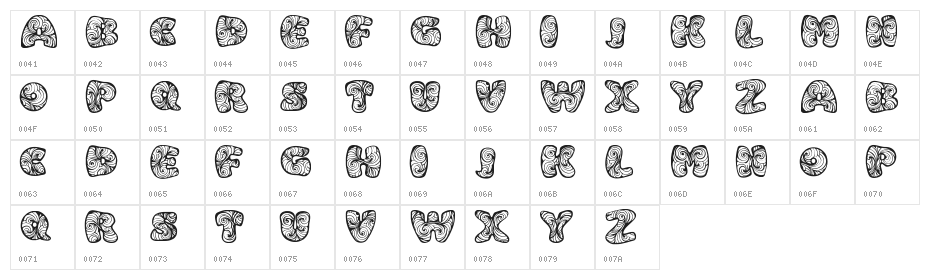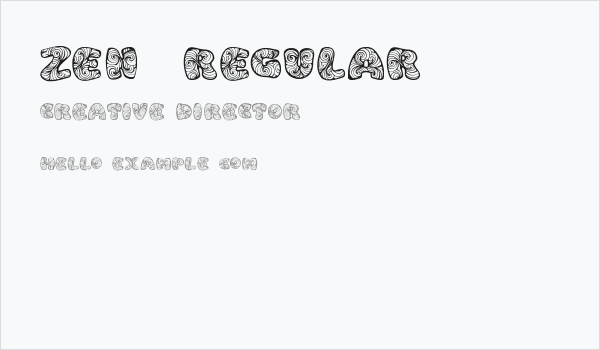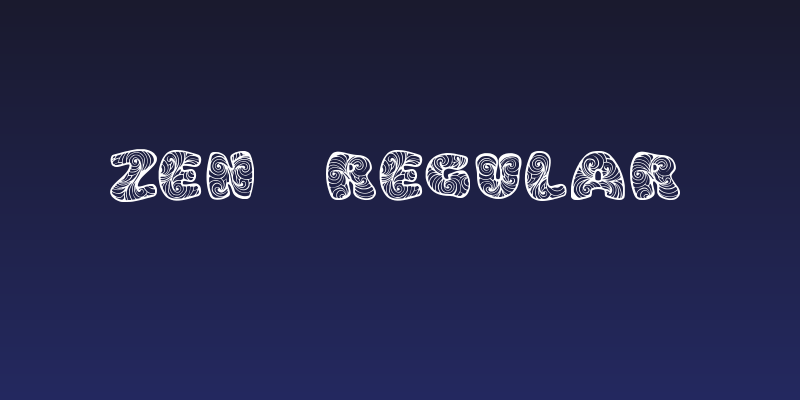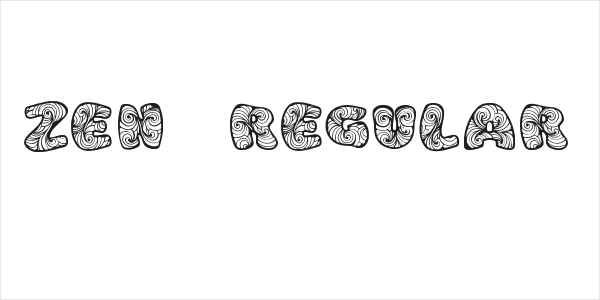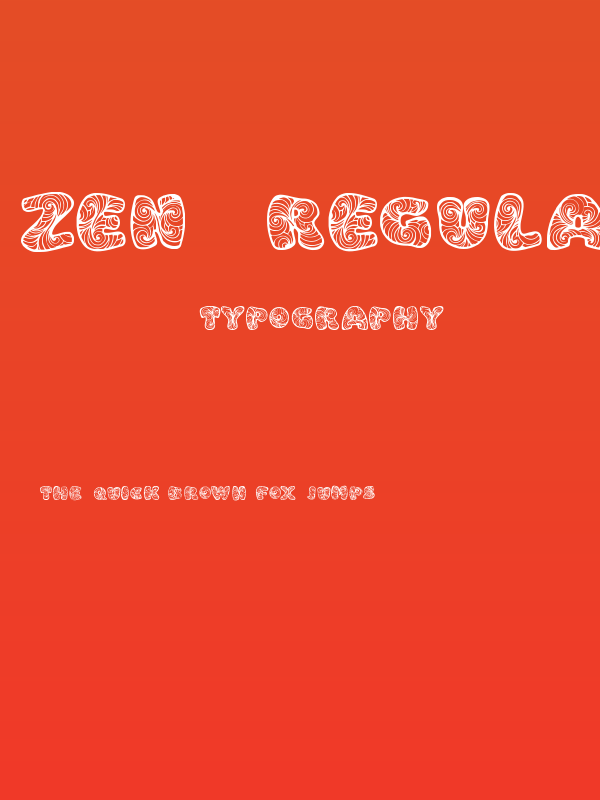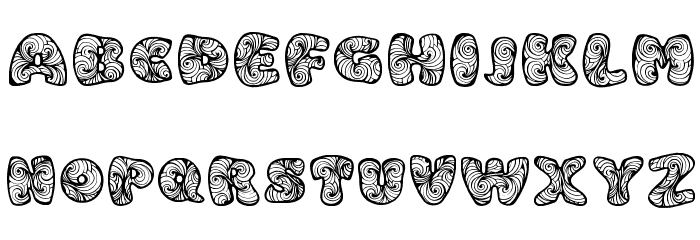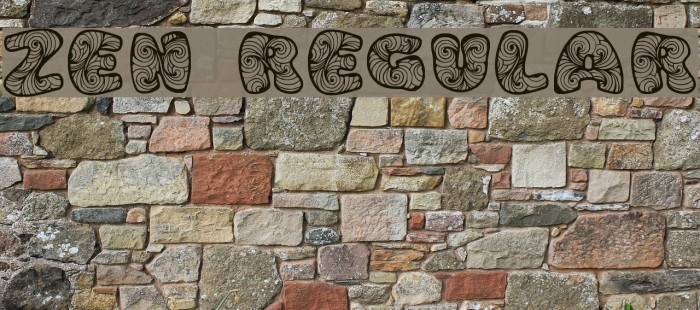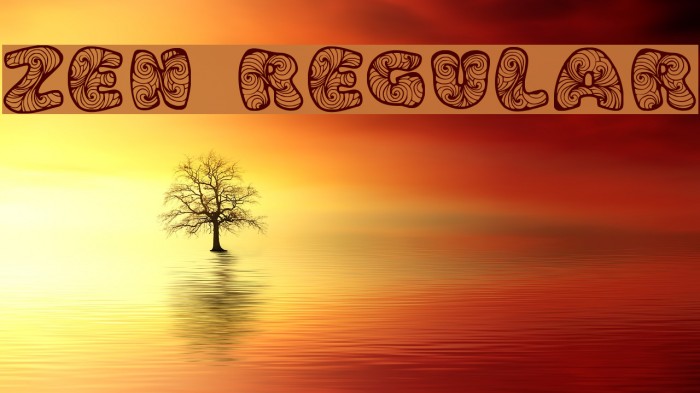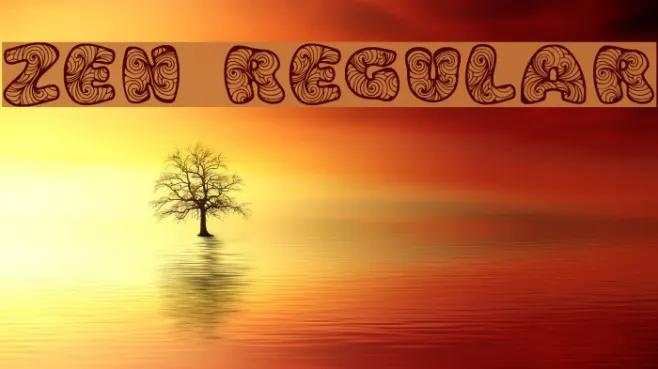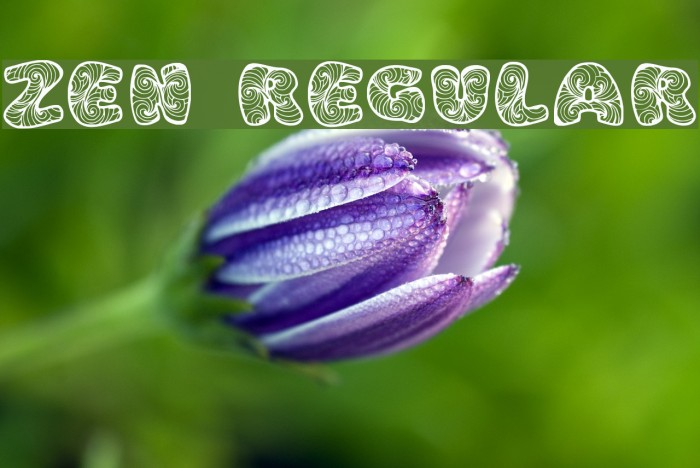
Zen3 Regular Font
Zen3 Regular Description
This font features a highly decorative and intricate design, characterized by swirling patterns and ornate details within each character. The letters are bold and eye-catching, making them ideal for artistic and creative projects. The intricate line work within each character gives the font a unique and whimsical appearance, reminiscent of hand-drawn or doodle art. The overall style is playful yet sophisticated, suitable for designs that require a touch of elegance and creativity. The font maintains a consistent style across uppercase and lowercase letters, as well as numbers and special characters, ensuring a cohesive look in any project.
| Use Case | Headlines, Logos, Artistic projects |
| Proposed Projects | Ideal for artistic projects, invitations, posters, and branding that require a creative and whimsical touch. |